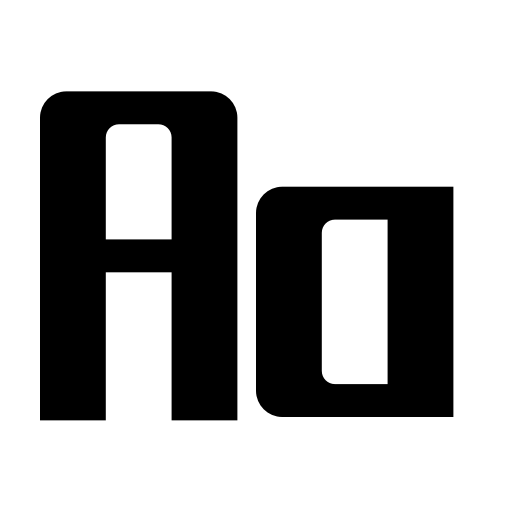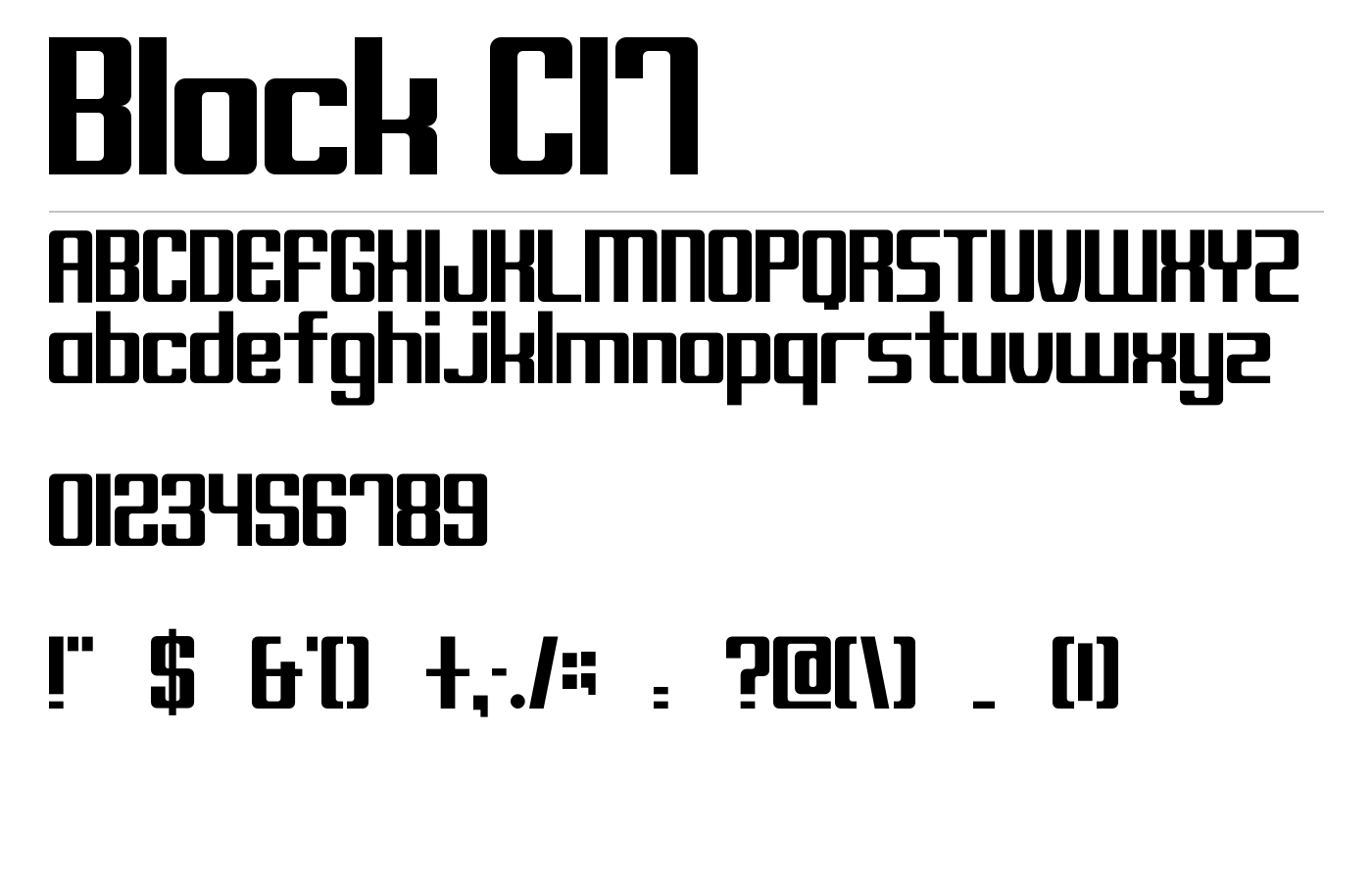
Block C17 is a bold, condensed sans serif font with a strong geometric structure and uniform stroke weight. Its squared shapes and high x-height create a modern, technical feel, making it ideal for headlines, posters, and branding that requires a striking, industrial look. This font works well when you want to convey strength and precision with a clean, minimalist style.
Block C17 Font
About Block C17 Font
| Font family | Block C17 Font |
| Designer | OneSevenPointFive |